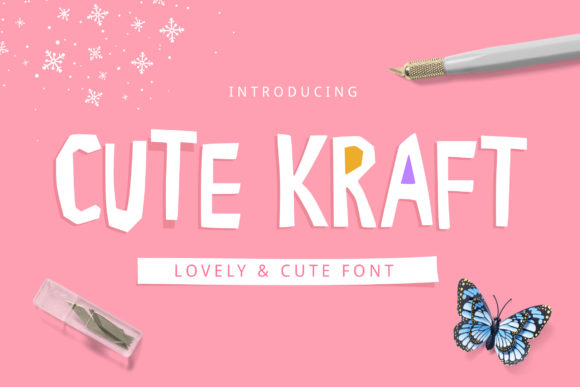
Unleash your creativity with the whimsical and captivating Cute Kraft Font!
Indulge in the irresistible charm of this artistic display font, meticulously crafted to evoke a sense of playfulness and enchantment in your designs.
*Journey through a world of imagination*
Whether you're a seasoned designer or just starting your creative adventure, Cute Kraft will be your trusty companion, guiding you through enchanting design landscapes.
*Embrace the magic of modern fonts*
Experience the fusion of tradition and modernity as Cute Kraft effortlessly blends the classic charm of handcrafted fonts with a touch of contemporary flair.
*Express your unique style*
Let your individuality shine through with Cute Kraft. Its versatile nature empowers you to effortlessly create designs that reflect your unique personality and style.
*Elevate your design projects*
Transform ordinary designs into captivating masterpieces. Cute Kraft's enchanting presence will add a touch of magic to your invitations, social media posts, and branding materials.
Don't resist the allure of the Cute Kraft Font. Embark on a creative journey today and let your imagination soar!